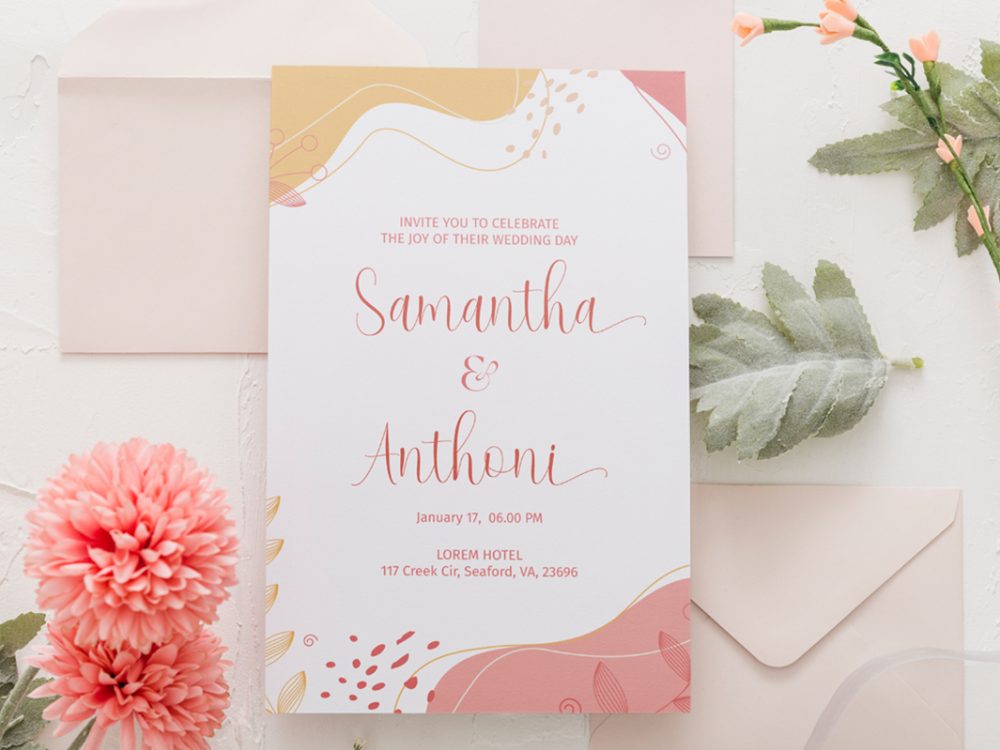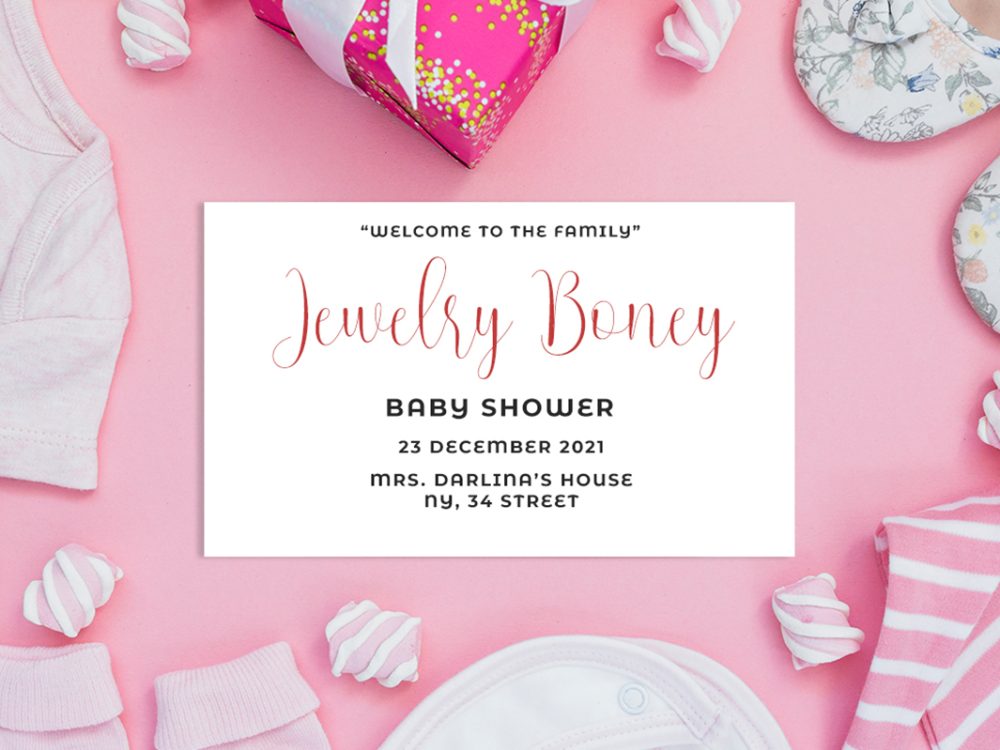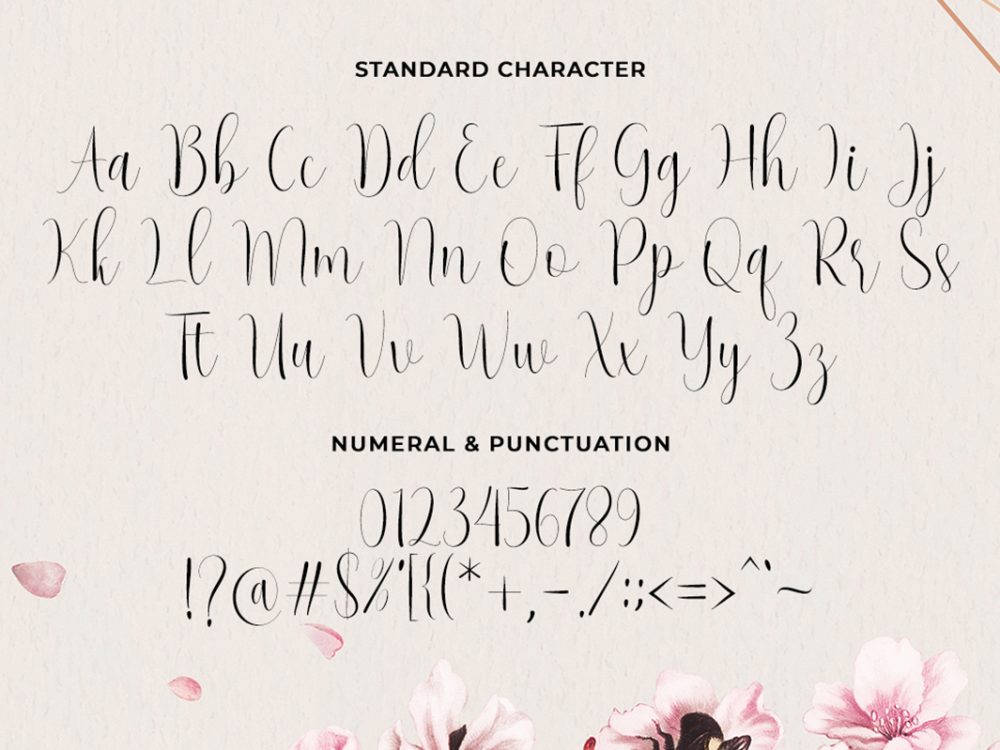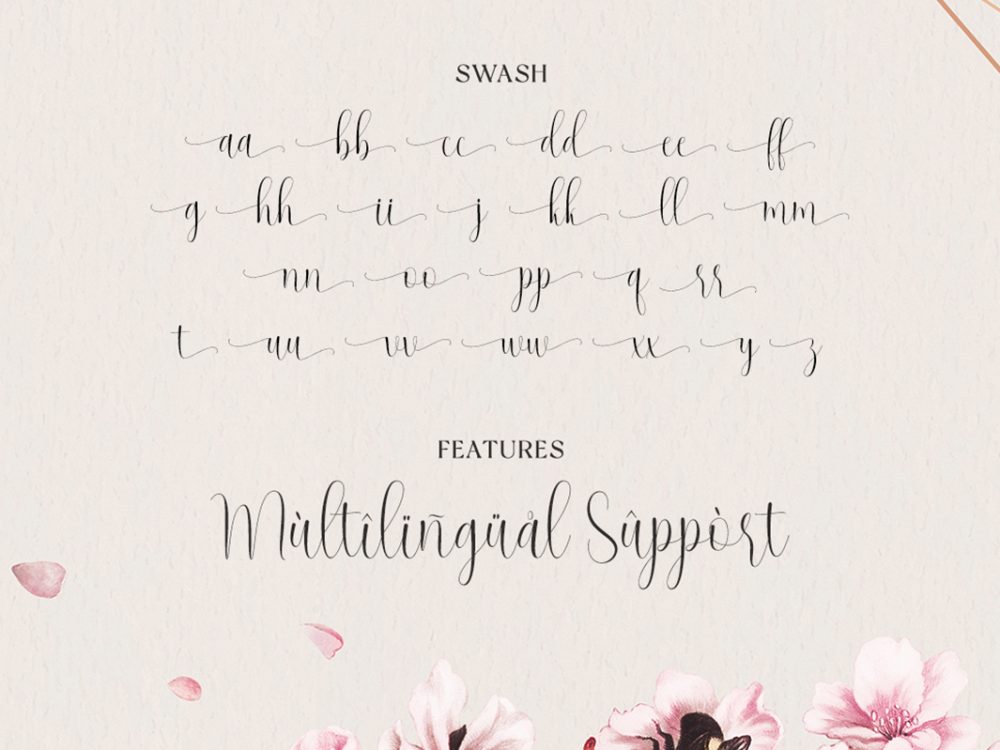
Herliyan Free Font is a strikingly beautiful and stylish script font, imparting a personalized flair to your art projects. With its elegant and contemporary aesthetic, it emerges as the ideal font for a myriad of projects including logos and branding, invitations, stationery, wedding designs, social media posts, advertisements, product packaging, product designs, labels, photography, watermarks, special events, or any creative endeavor that craves a handwritten touch. If you like it don’t forget to check out the full version.